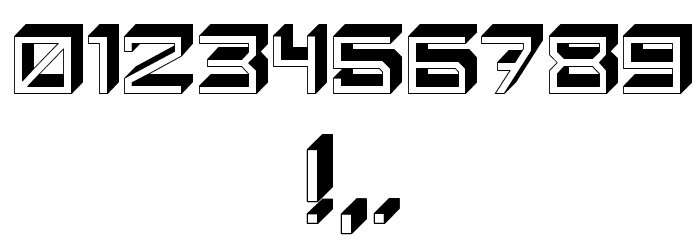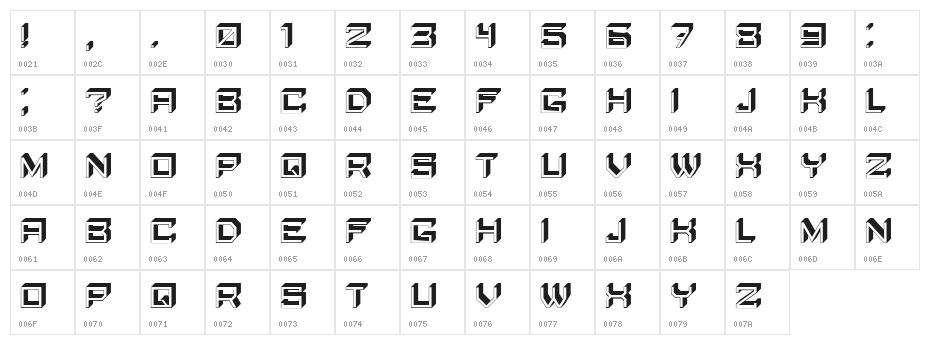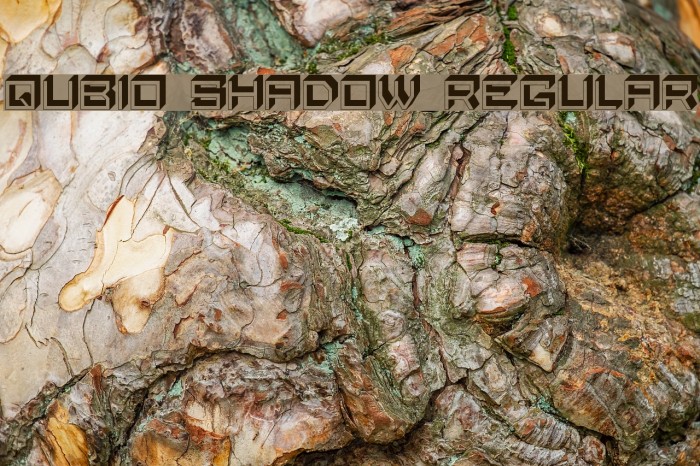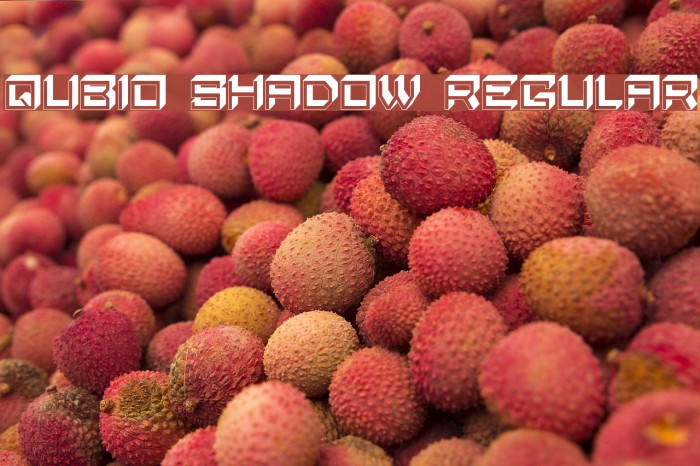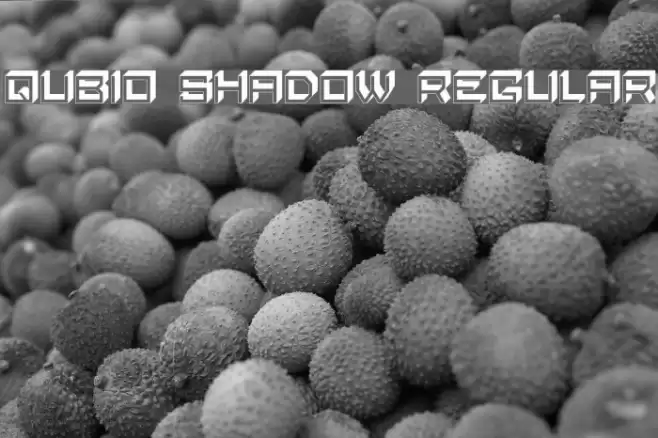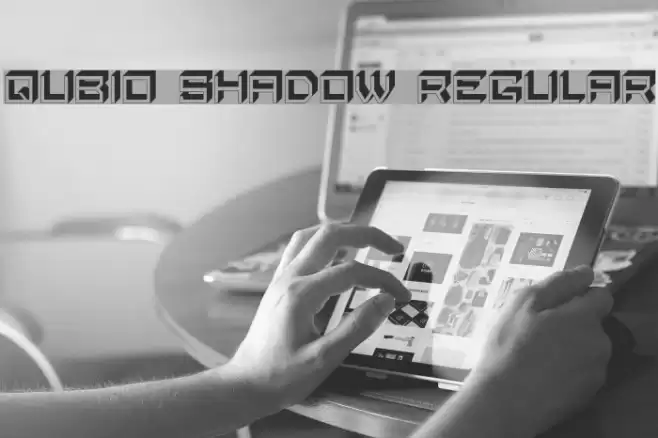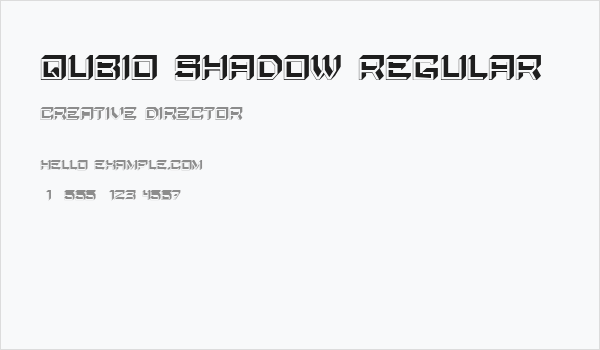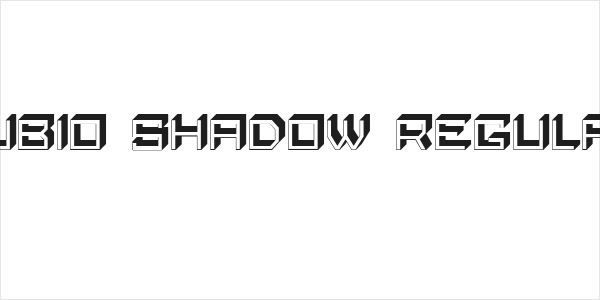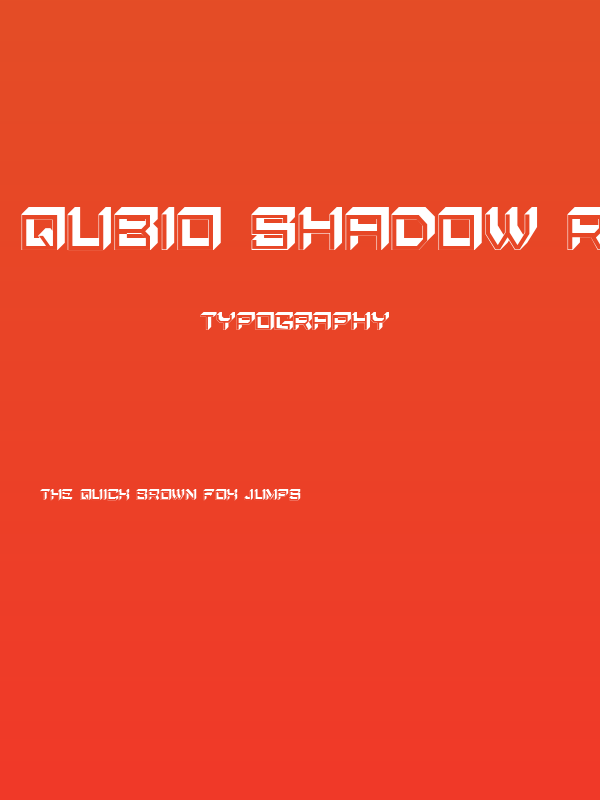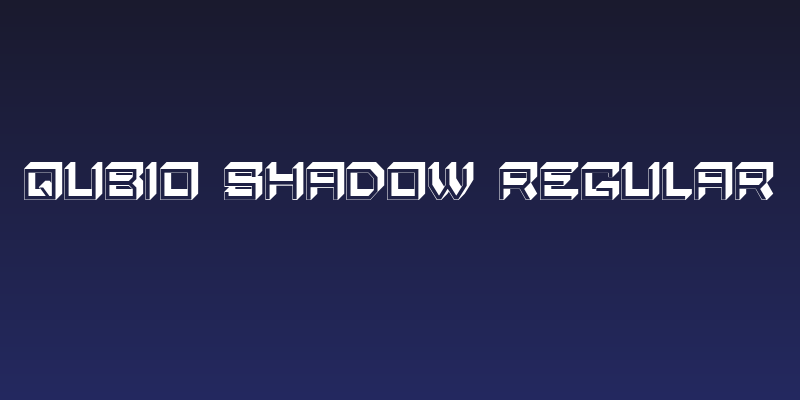
Qubio Shadow Regular Font
Qubio Shadow Regular Description
This font features a bold, geometric design with a distinct shadow effect that gives it a three-dimensional appearance. The characters are constructed with sharp angles and clean lines, creating a futuristic and dynamic look. The shadow is consistently applied, enhancing the depth and making the letters stand out prominently. This style is particularly eye-catching and suitable for designs that require a strong visual impact. The uniformity in the shadowing and the angular construction of the characters contribute to a cohesive and modern aesthetic.
| Proposed Projects | Ideal for projects such as posters, logos, video game graphics, and any design needing a futuristic or tech-inspired theme. |